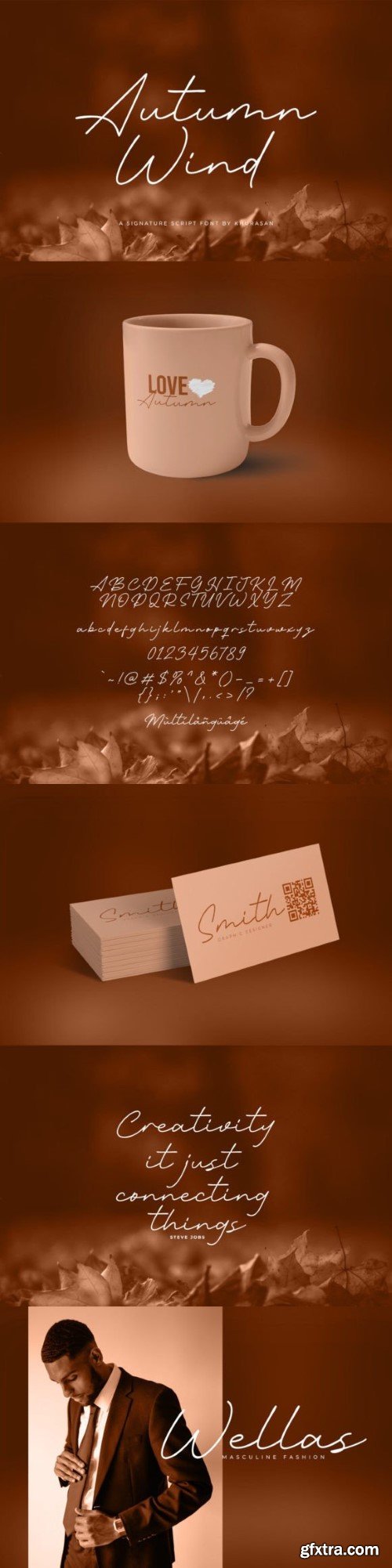
秋风字体
Autumn Wind is a clean, stylish, modern, and elegant script font perfect for posters, logos, magazines, book covers, banners, and many more! Get this amazing font, and use it to create lovely designs. It can easily be matched to an incredibly large set of projects, so add it to your creative ideas and notice how it makes them stand out!